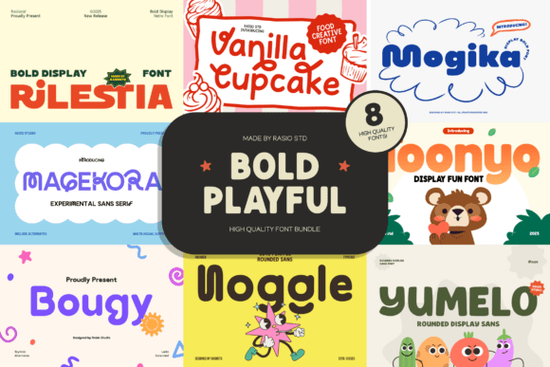
If you're looking for fonts that feel cheerful, friendly, and full of energy without sacrificing readability the Bold Playful Bundle Font is a thoughtful, well-crafted option. It’s not just a collection of “cute” fonts slapped together; each typeface is intentionally designed with rounded shapes, generous spacing, and consistent weight to work across real-world projects from kids’ activity sheets to social media graphics for small businesses.
What makes this bundle different from other playful fonts?
Many display fonts lean too far into whimsy and become hard to read at smaller sizes or in longer text blocks. The Bold Playful Bundle Font avoids that trap. Its fonts balance personality with practicality: think bold letterforms that hold up on stickers or product packaging, but also include subtle details like soft terminals and open counters that help maintain clarity even at 14pt. You’ll find styles ranging from bubbly all-caps display fonts to slightly more structured sans-serifs that still carry a light, approachable tone.
This isn’t about forcing fun it’s about choosing typefaces that match the mood your audience expects. A bakery launching a new line of rainbow cookies? This bundle gives you options that feel joyful without shouting. A homeschooling parent designing printable flashcards? These fonts are legible, warm, and age-appropriate for early readers.
Where do these fonts work best?
Because they’re built for visibility and friendliness, these fonts shine in contexts where tone matters as much as function:
- Kids’ projects: coloring pages, learning posters, birthday invitations, nursery decor
- Small business branding: café menus, boutique packaging, handmade soap labels
- Social content: Instagram story templates, Pinterest pins, TikTok overlays
- Print-on-demand designs: mugs, tote bags, wall art especially when targeting parents, educators, or craft lovers
They pair well with simpler sans-serifs for body text. For example, if you’re building a brand kit, you might use one of the bolder display fonts from the bundle for headlines, then pair it with something clean and neutral like Campus Font or Matters Font for supporting text. That contrast keeps things lively but never chaotic.
It’s easy to mix up playful fonts especially when browsing by style but the Bold Playful Bundle Font stands out because of its consistency in weight and rhythm. Unlike some experimental fonts that prioritize novelty over usability, every face here was tested for screen and print legibility. Compare it to Boston Font, which leans more toward modern minimalism, or Rotation Font, which uses geometric precision for a different kind of energy. This bundle is softer, rounder, and intentionally more inclusive in tone great for brands that want to feel welcoming, not trendy.
You’ll also notice thoughtful extras: many fonts include alternate characters (like swash capitals or playful numerals), multilingual support covering basic Latin-based languages, and OpenType features for better typographic control in design apps like Illustrator or Affinity Designer.
Real examples of how people are using it
A teacher in Oregon uses two fonts from the bundle to create weekly classroom newsletters bold headers for section titles, and a slightly lighter variant for student spotlight blurbs. A POD seller on Etsy reports higher click-through rates on listings featuring product mockups made with these fonts, especially for baby shower themes and toddler apparel. And a local pottery studio chose one of the rounded display fonts for their new “Glaze Day” workshop series it feels handmade, warm, and inviting, without needing illustration or extra graphic elements.
While these fonts are versatile, they’re not meant to replace your go-to workhorse sans-serif for long paragraphs or data-heavy layouts. Think of them as your “voice” fonts the ones that set the emotional tone rather than your “utility” fonts. For that reason, pairing them thoughtfully (like with Bold Playful Bundle Font for headings and Campus Font for body copy) tends to yield the most balanced results.